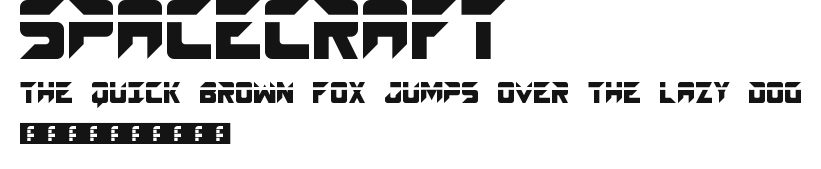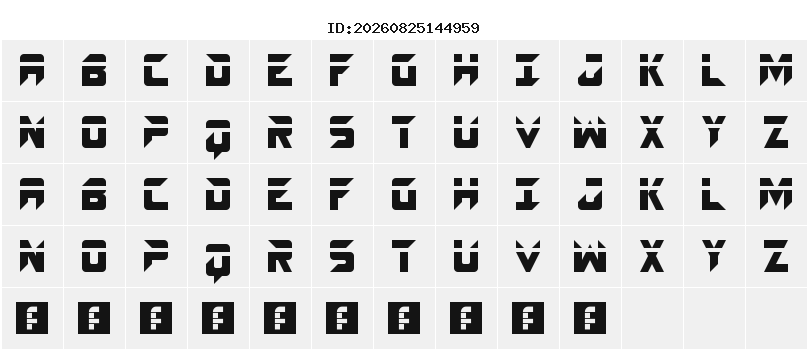
• Font Name: SPACECRAFT
• Font ID: FontStruct SPACECRAFT
• Full Font Name: SPACECRAFT Regular
• PostScript Name: SPACECRAFT
• Character Count: 62
• Designer: GeronimoFonts
• Description: ‚ÄúSPACECRAFT‚Äù was built with FontStruct ‚ÄúSPACECRAFT‚Äù is based on ‚ÄúPinstripe‚Äù by ‚ÄúGeronimoFonts‚Äù (http://fontstruct.com/fontstructors/geronimofonts)
About SPACECRAFT.ttf
SPACECRAFT.ttf is a modern, elegant sans-serif font designed for ultimate readability and visual harmony. Perfect for branding, headlines, web design, and print materials.